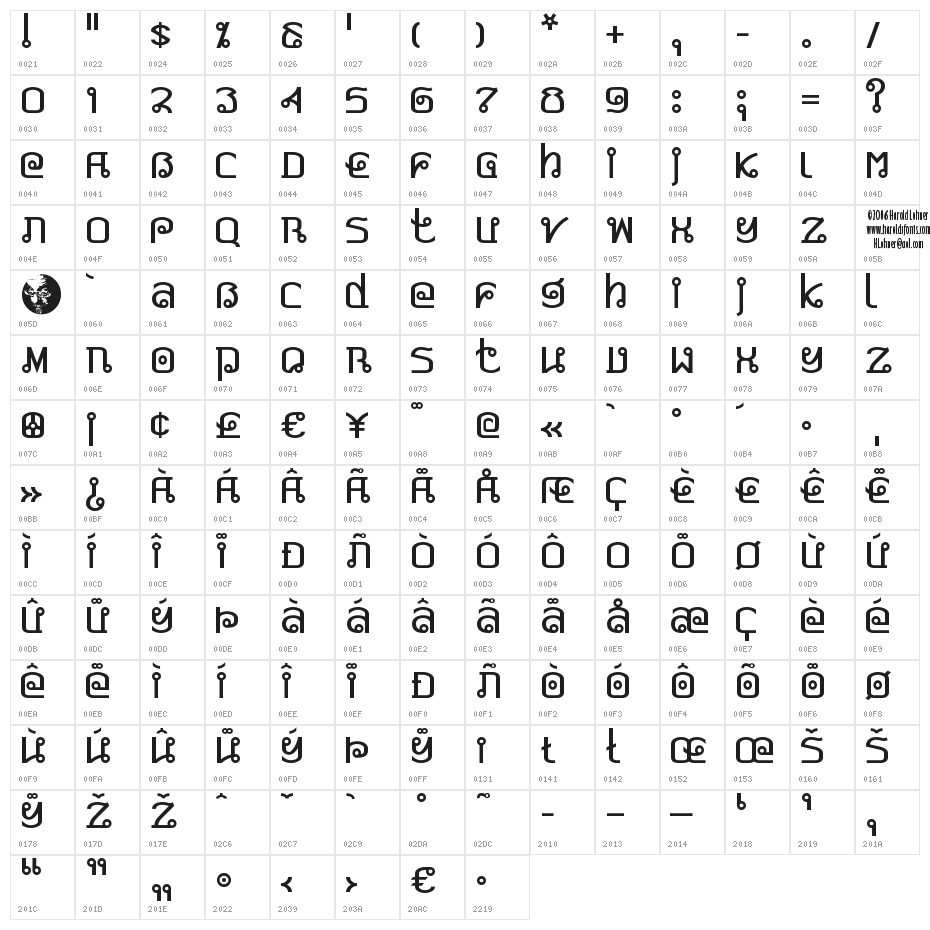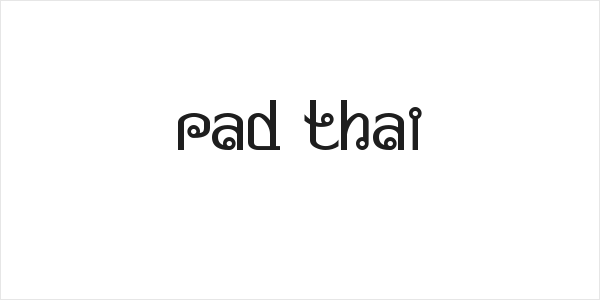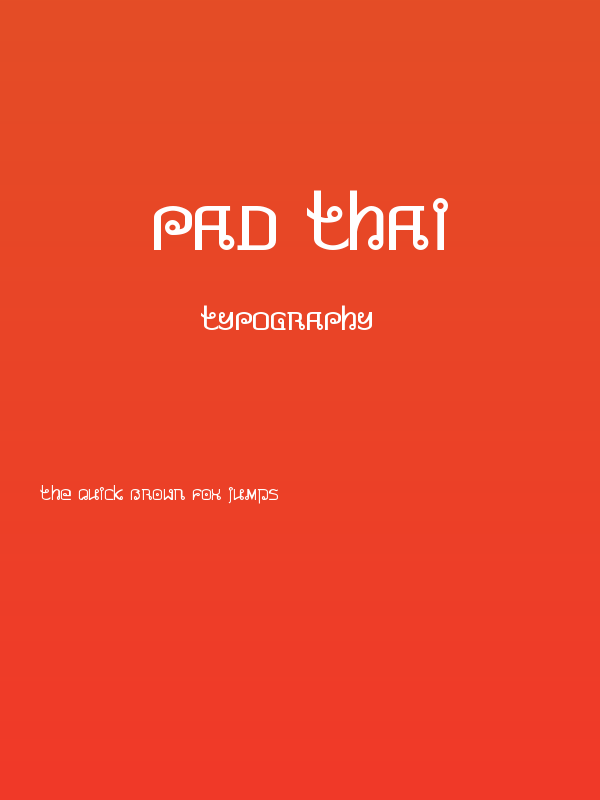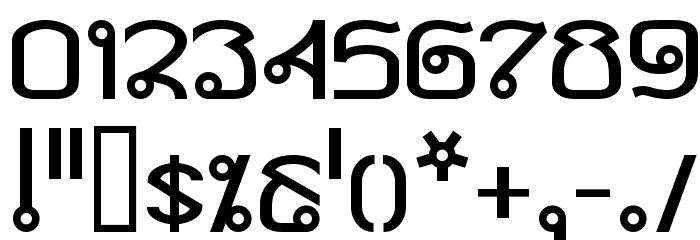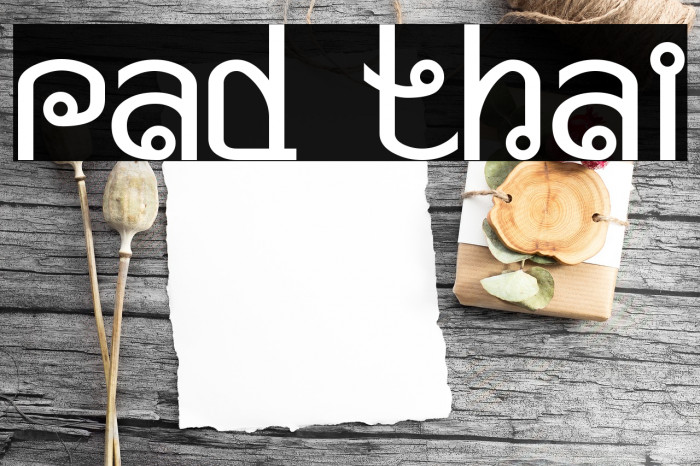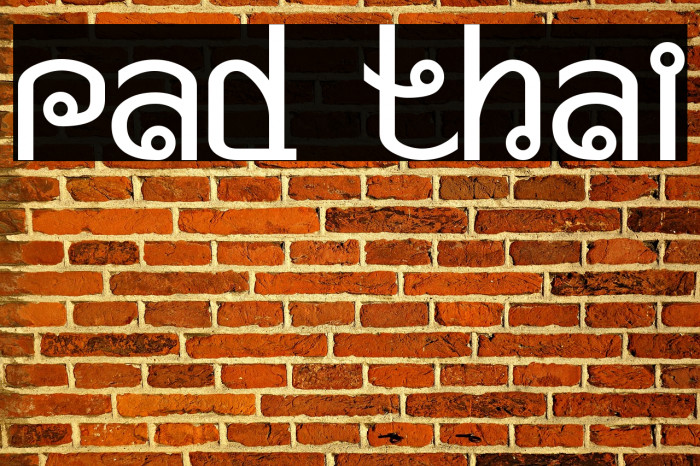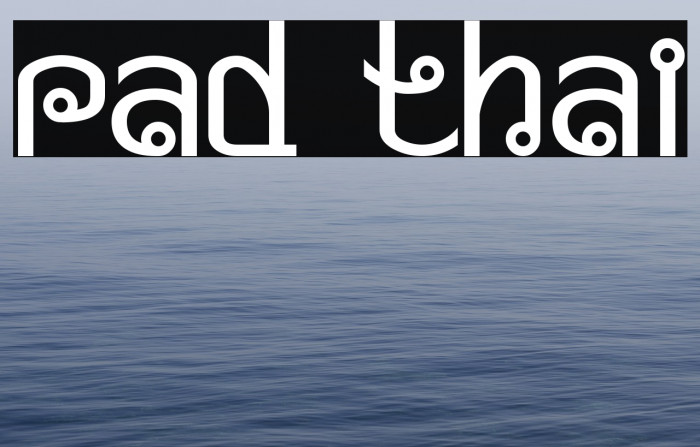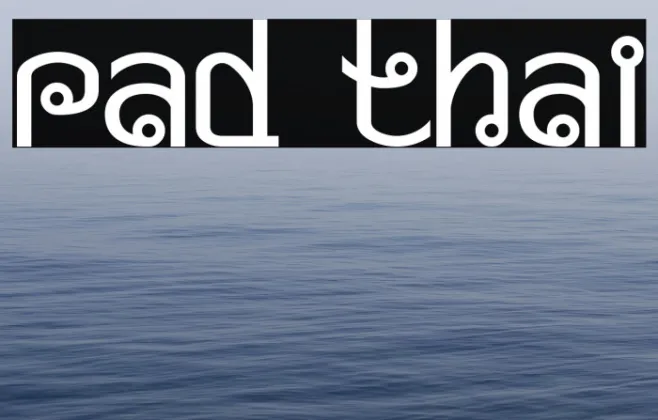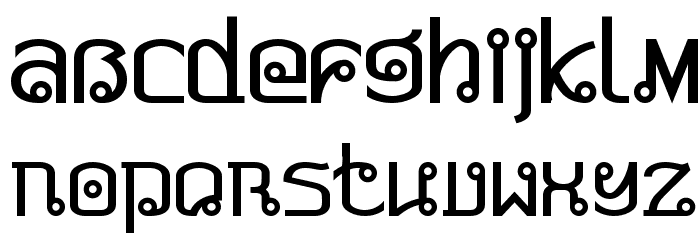
Pad Thai Font
Pad Thai Description
This font features a unique and playful design with a modern twist. Each character is crafted with a combination of bold strokes and rounded edges, giving it a distinctive look. The letters incorporate small, circular embellishments that add a decorative flair, making it stand out in any design. The numbers and special characters follow the same stylistic approach, ensuring consistency across all elements. This font is ideal for projects that require a touch of creativity and modernity, while still maintaining readability.
| Proposed Projects | Ideal for creative branding, playful posters, modern invitations, and eye-catching headlines. |